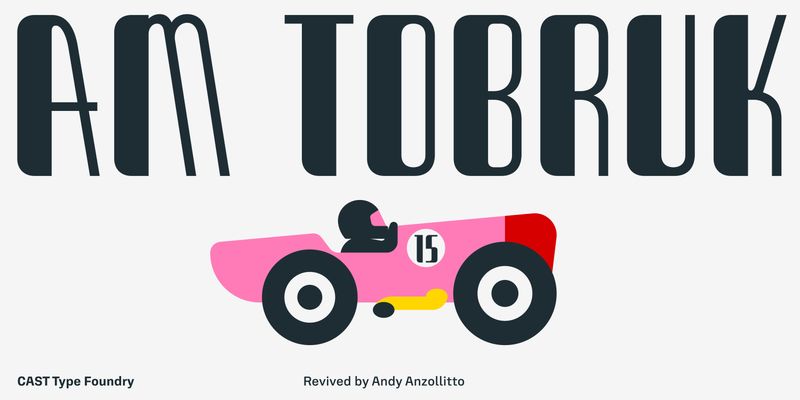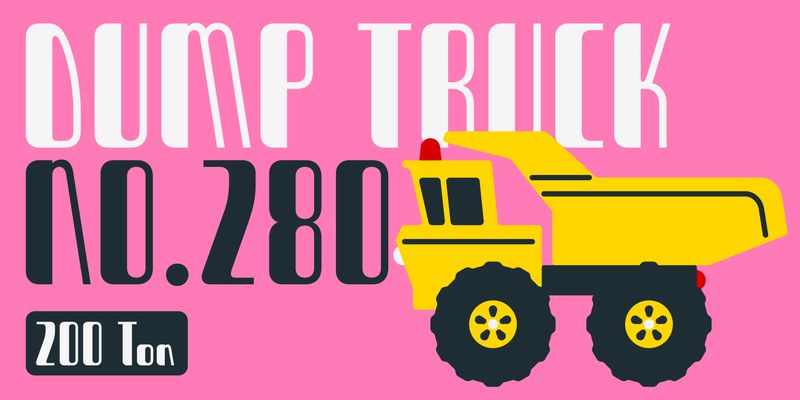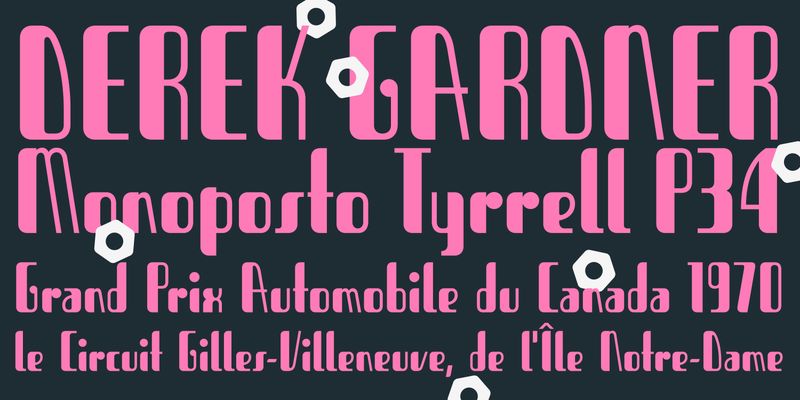
AM Tobruk is a condensed sanserif with rounded corners and an unusually strong thick/thin contrast with just one thick stroke for each character. The x-height is rather small, and the streamlined shapes of the letters clearly show an Art Deco influence, which is emphasised by some peculiar details. For example, see the vertical s and S; the ‘lowercase’ capital M and N with oblique thin stems (as m and n); and the stems of p and q rising above the x-height.